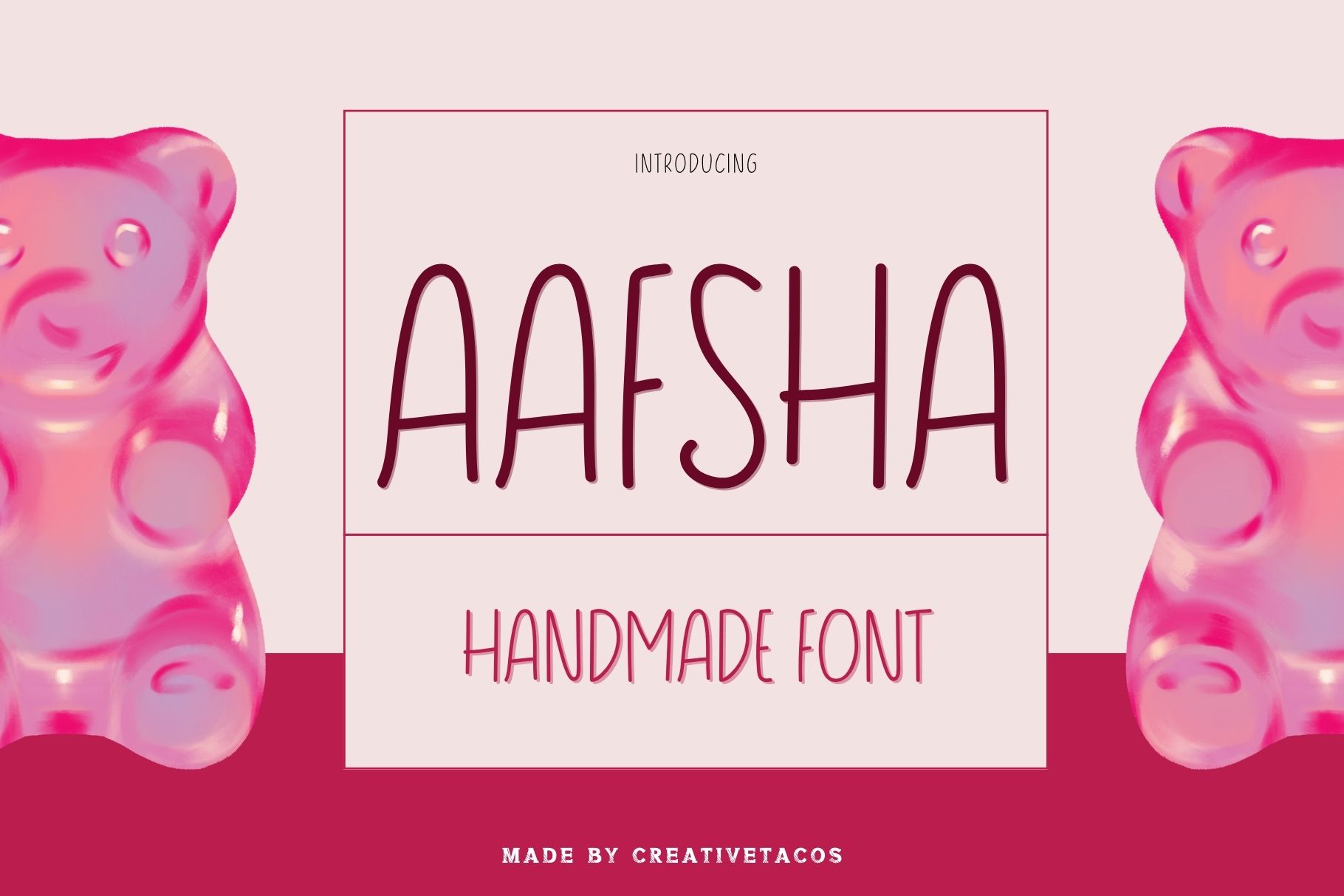
Aafsha Handwritten Comic Font is a playful, whimsical, handwritten comic font designed for creative and fun projects. It works perfectly for children’s books, logos, social media graphics, and posters. The font’s rounded edges and casual strokes give it a joyful and relaxed feel, perfect for adding a friendly touch to any design.
Style: Each letter maintains a consistent, fun, and easy-to-read structure. The unique character shapes of Aafsha bring a personal and handmade feel to any project, enhancing its playful nature. Its tall and narrow forms ensure clarity and ease of use.